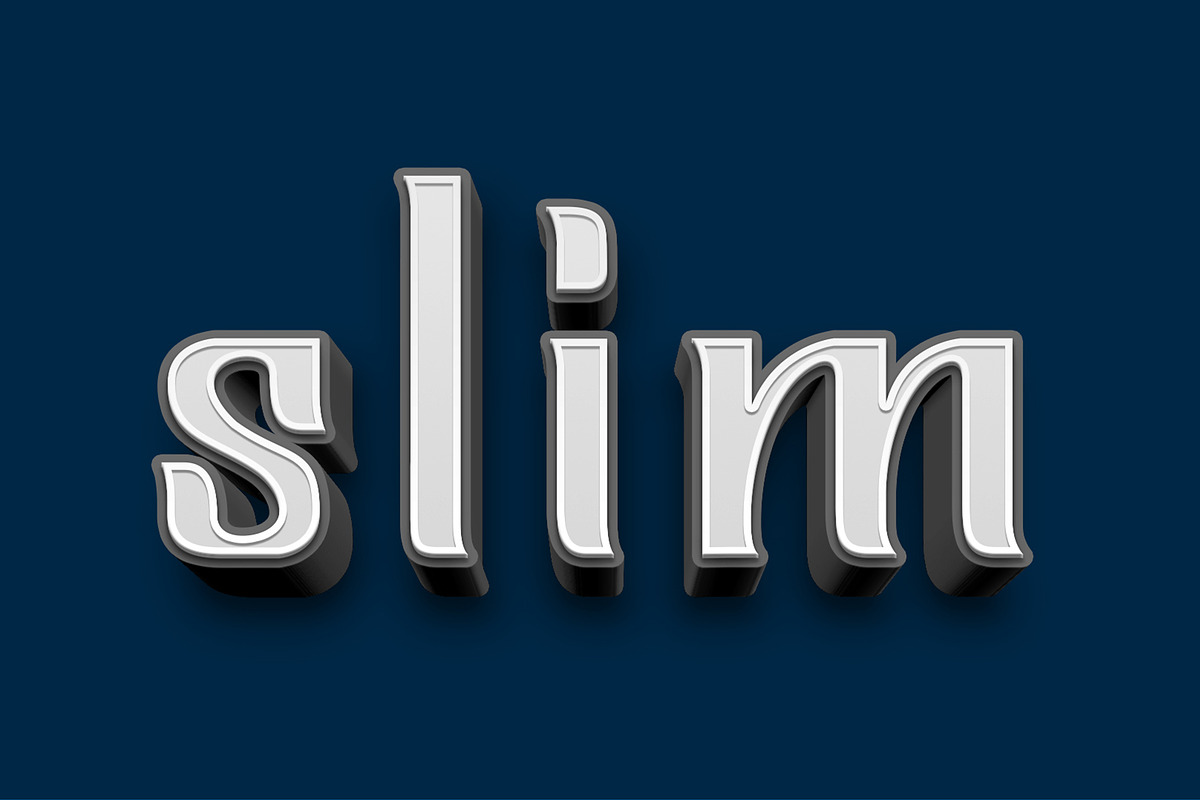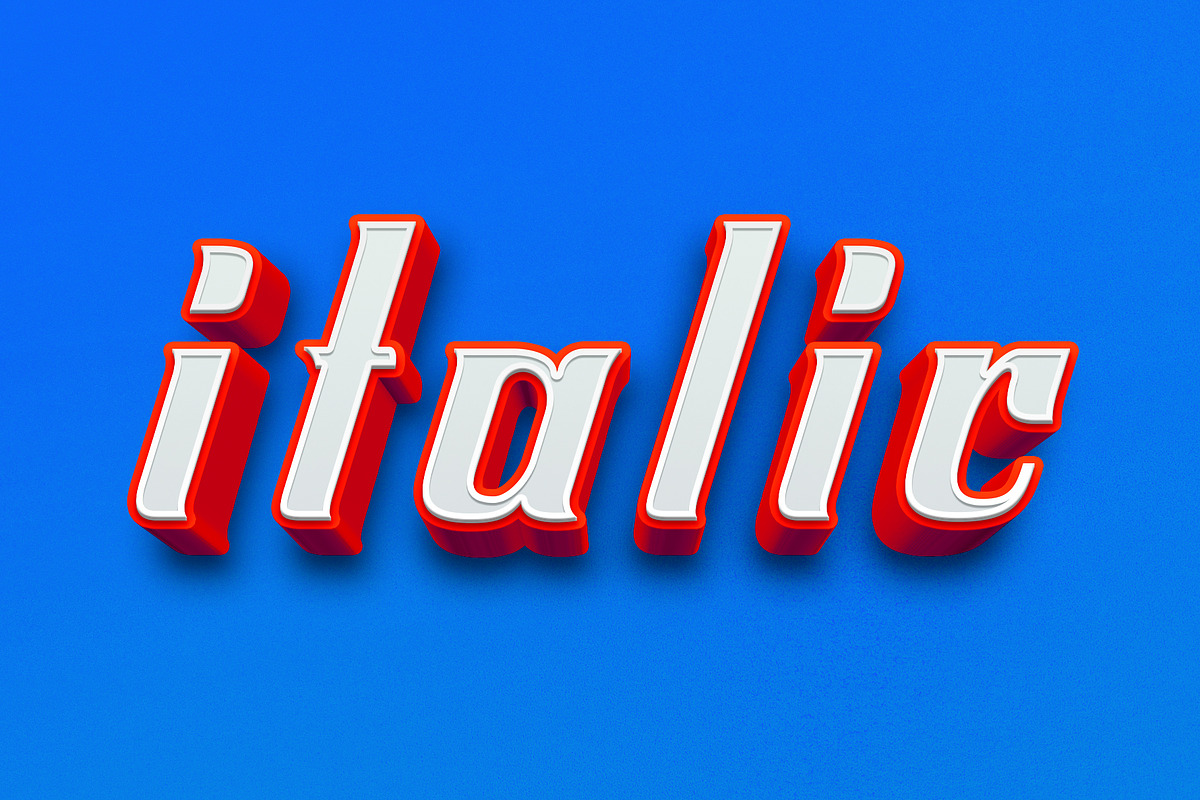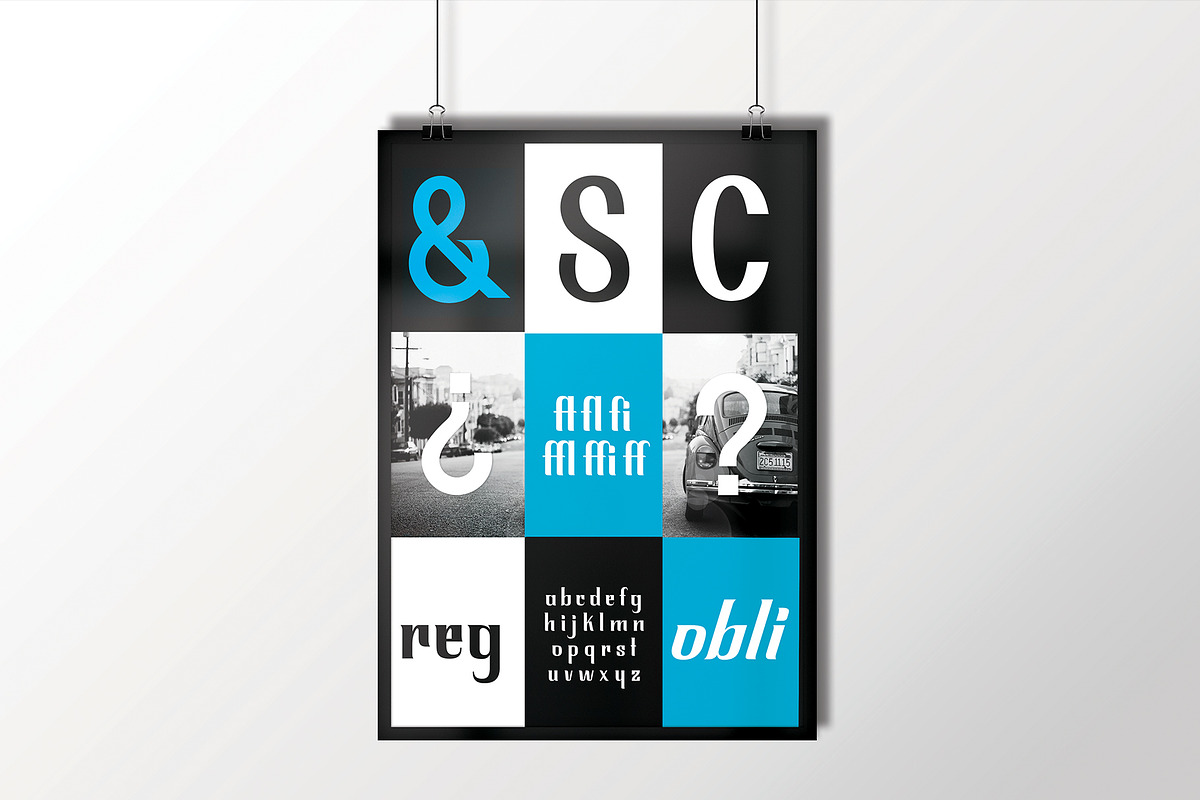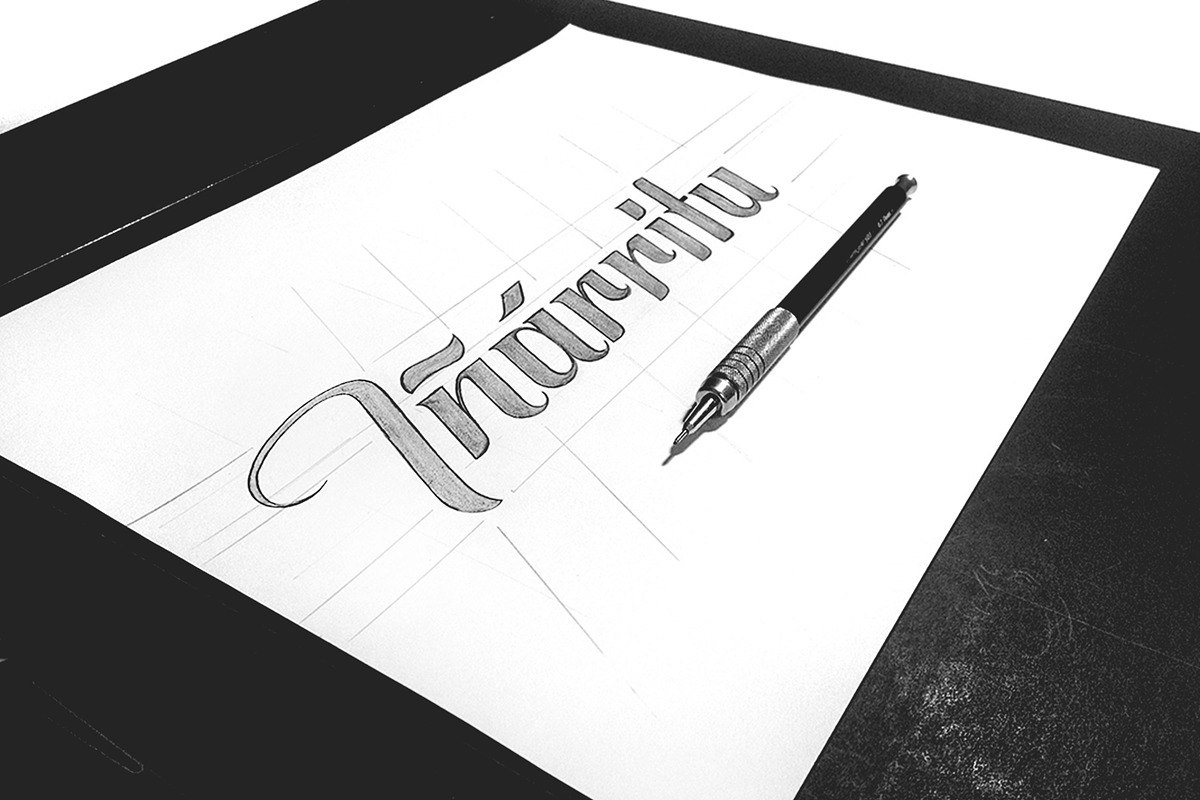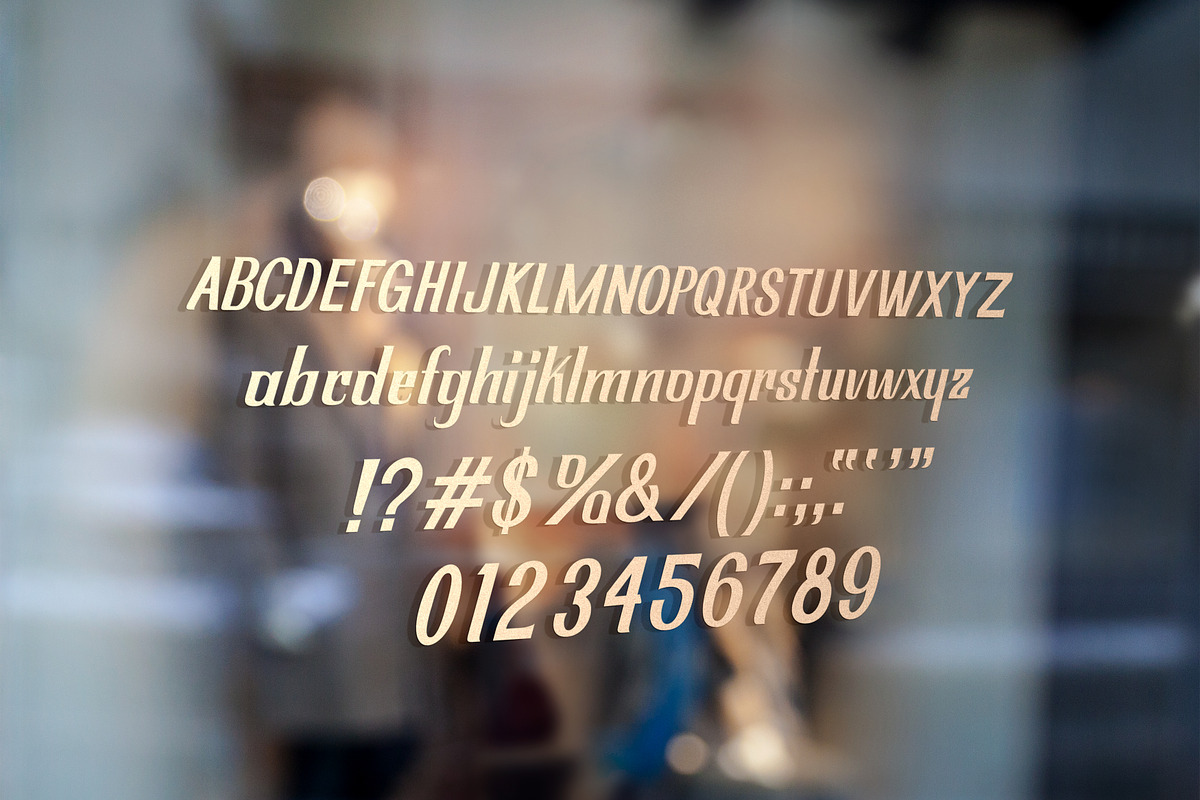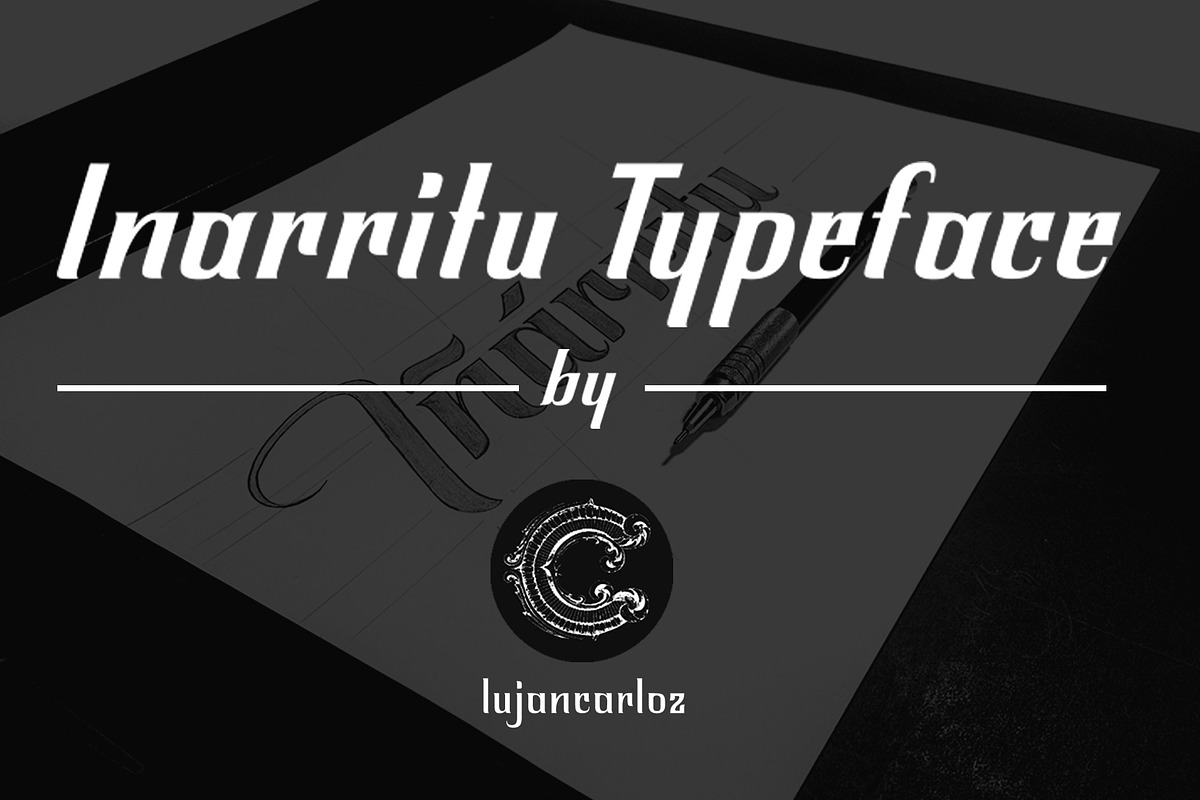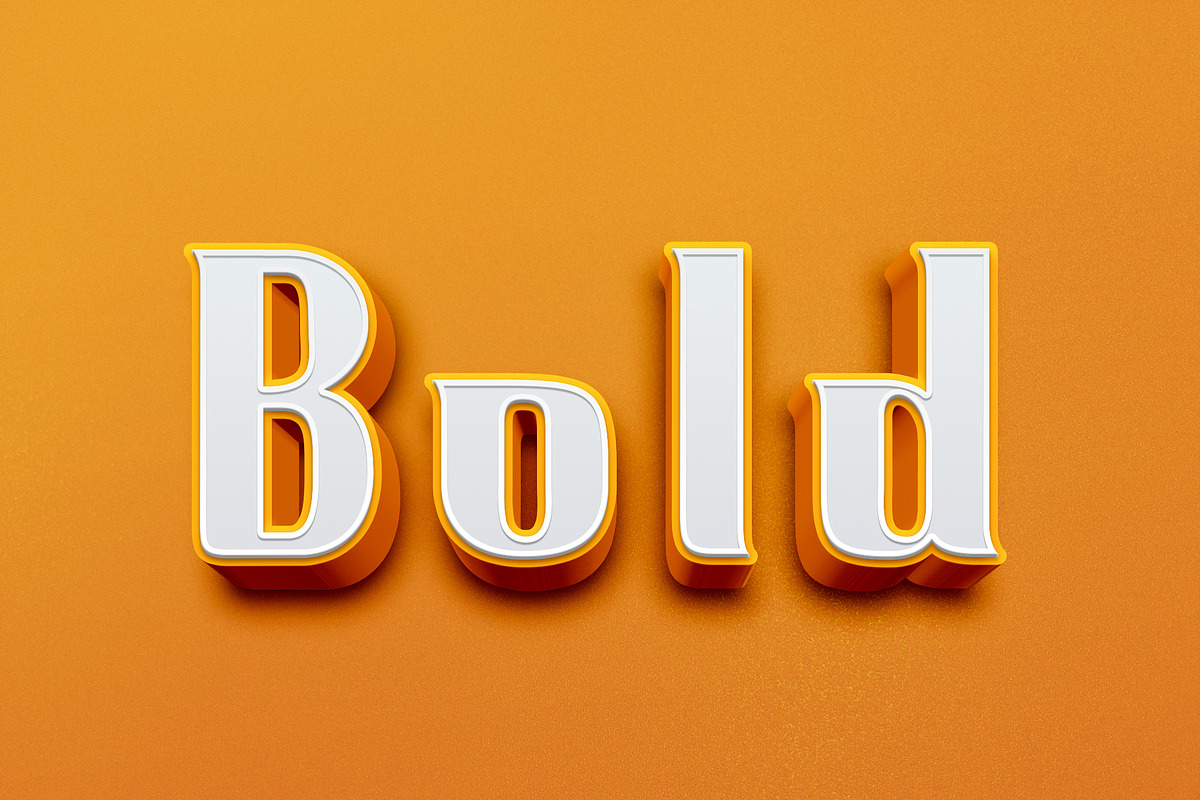
Inarritu Typeface
Created and inspired by watching the great and hard working film director Alejandro González Iñárritu.
- Inarritu Regular
- Inarritu Incline
- Inarritu Slim
- Inarritu Thick
Inarritu Typeface by lujancarloz fits naturally into Branding, posters, packaging, typography.